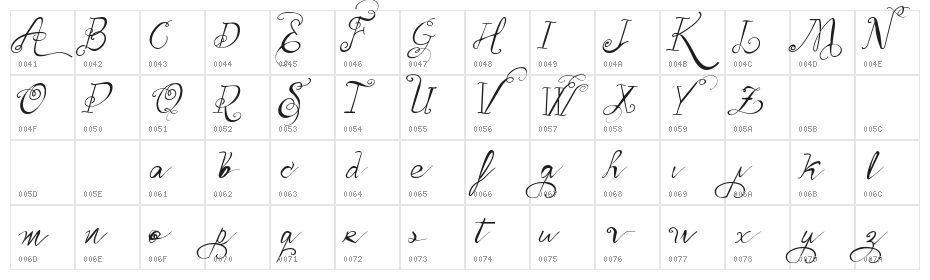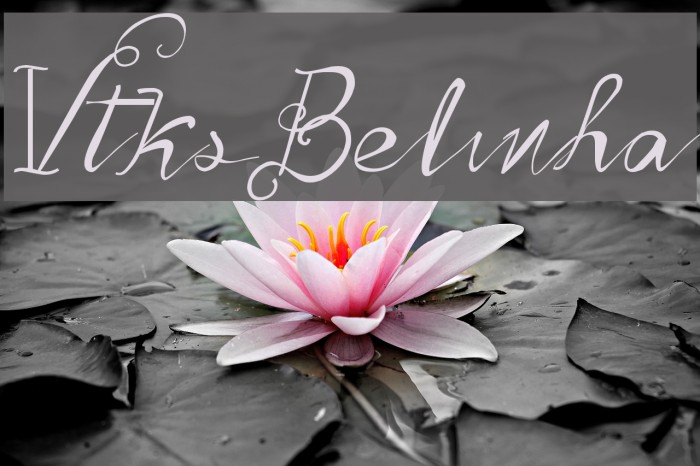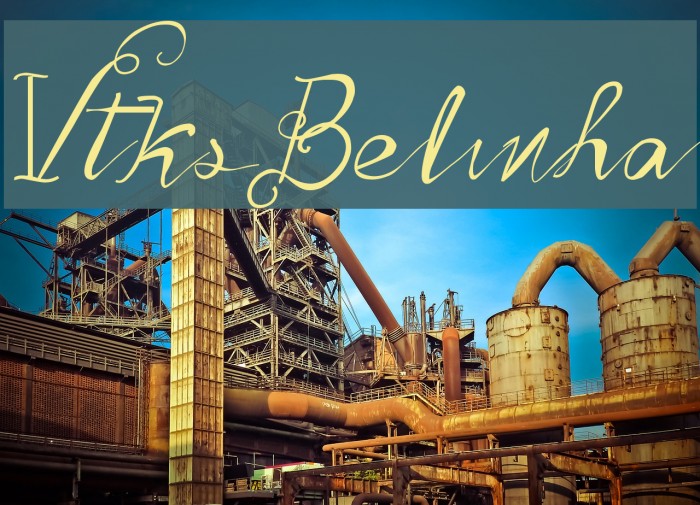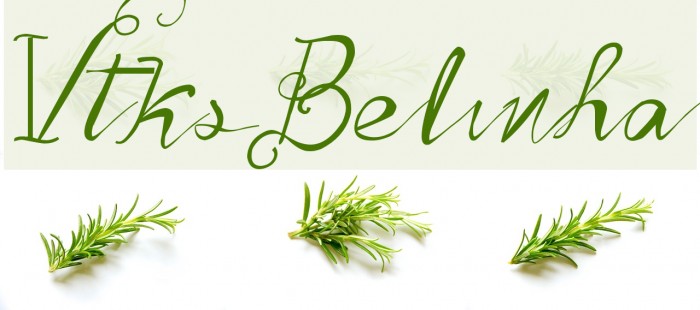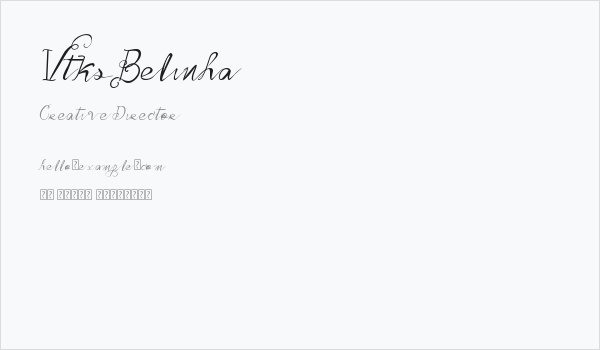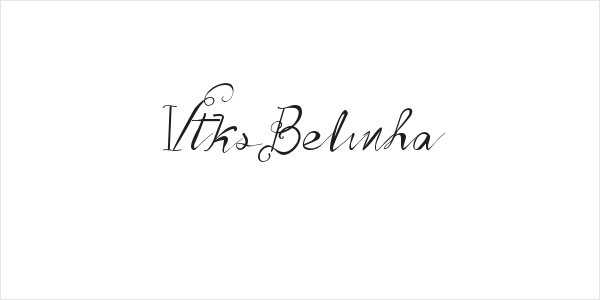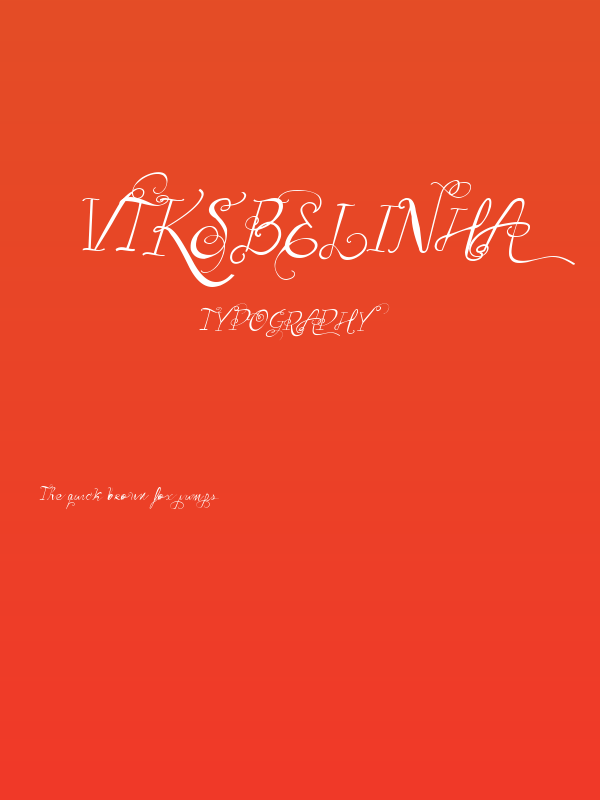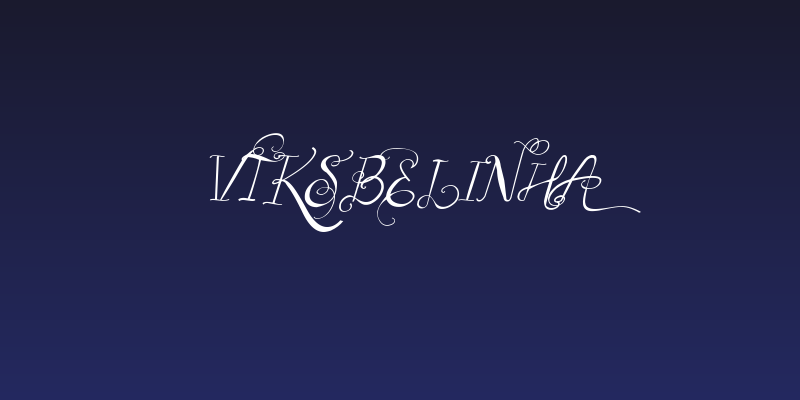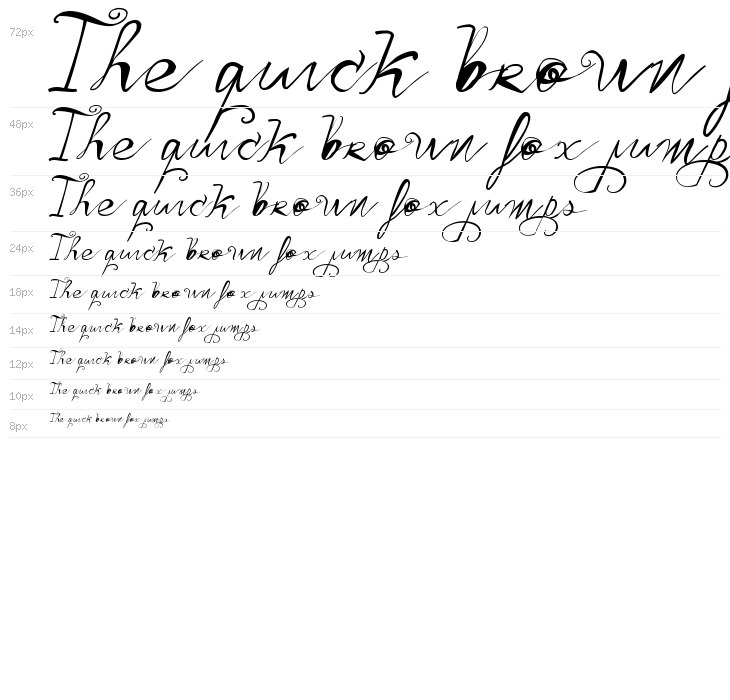
Vtks Belinha Font
Vtks Belinha Description
This font features an elegant and flowing script style, characterized by its ornate swirls and flourishes extending from each letter. The uppercase letters are particularly elaborate, with intricate loops and curves that give a sense of sophistication and grace. The lowercase letters maintain a consistent style, with smooth, flowing lines that create a harmonious balance with the uppercase. The overall design is reminiscent of classic calligraphy, making it suitable for projects that require a touch of elegance and refinement.